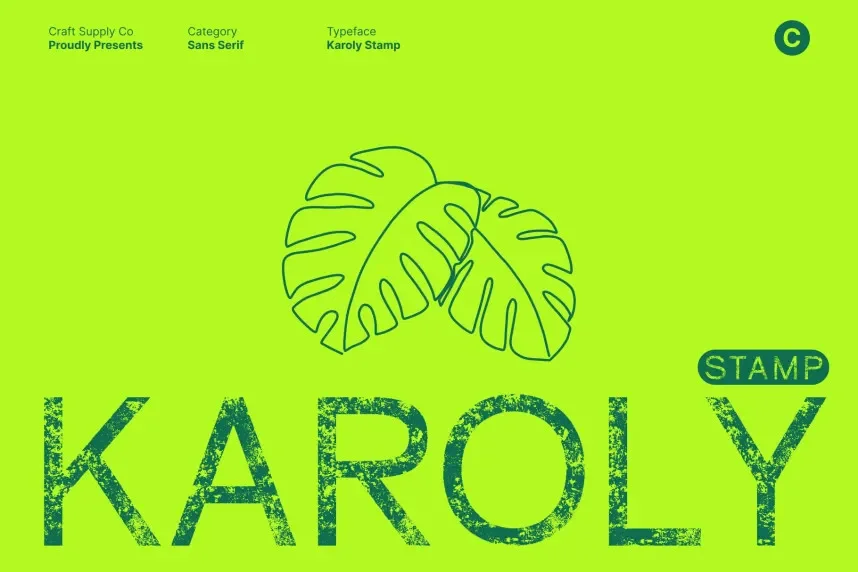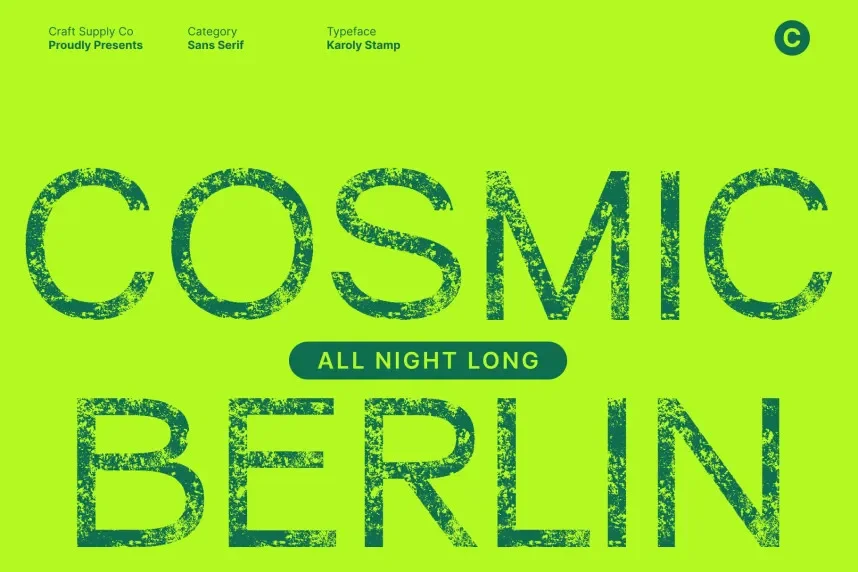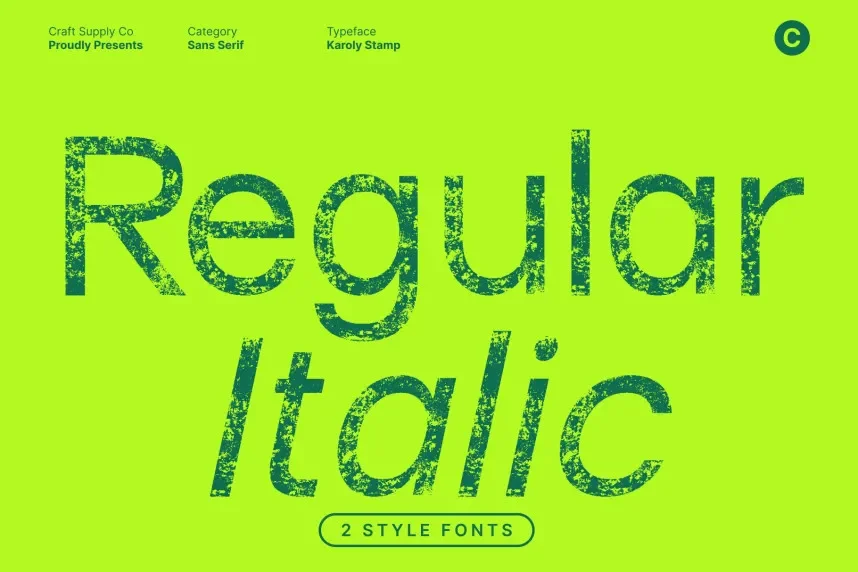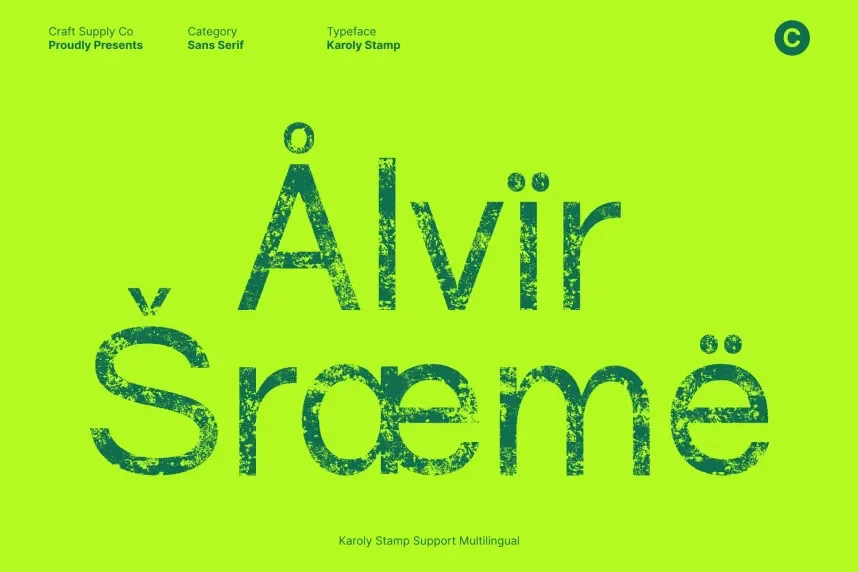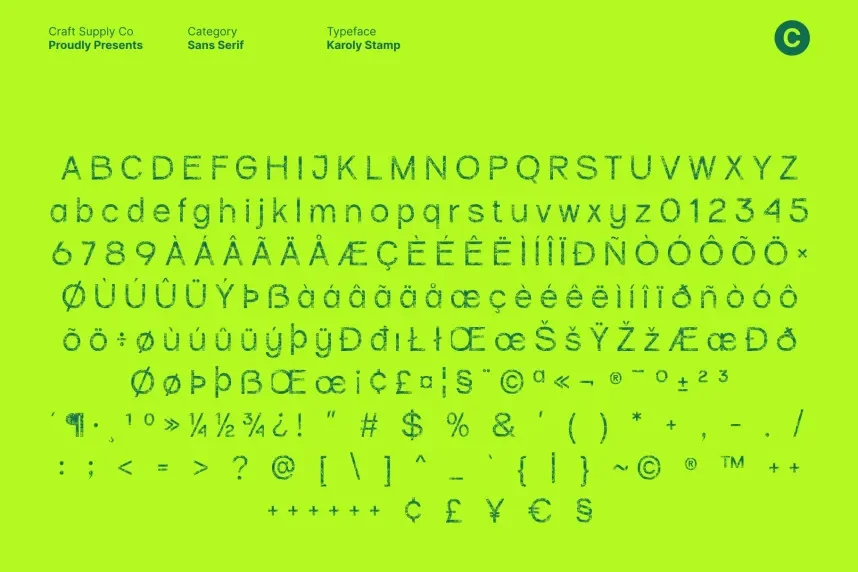
Karoly Stamp Font is a display typeface built for bold visual communication where texture matters. Designers use it when clean fonts feel too polished for branding, packaging, or poster layouts that need an industrial tone.
This font features heavy strokes, worn edges, and uneven ink textures. Letterforms keep simple geometry, which helps maintain clarity despite the distressed appearance. Karoly Stamp Font works best for short phrases rather than long body text.